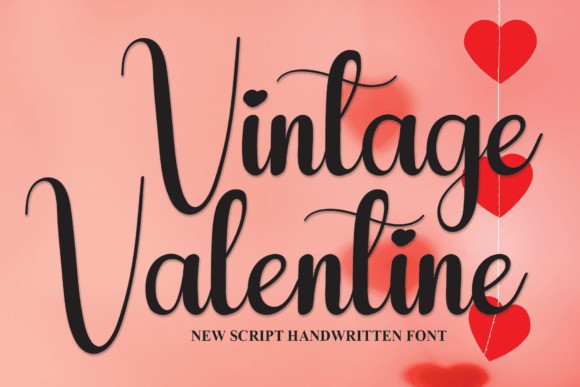
Vintage Valentine Font
Vintage Valentine Font is a sweet and friendly handwritten font. Creative and cute, this font is ideal for writing wedding invitations, cards, or any other design that might need a fun touch!